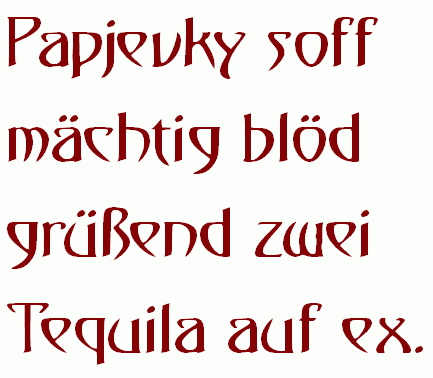
Font name: | Gismonda FG |
Author: | FontGrube AH |
Note by FontGrube AH | |
An Art Nouveau font with full West European charset Revised vision 1.30 from May 4th 2013 |